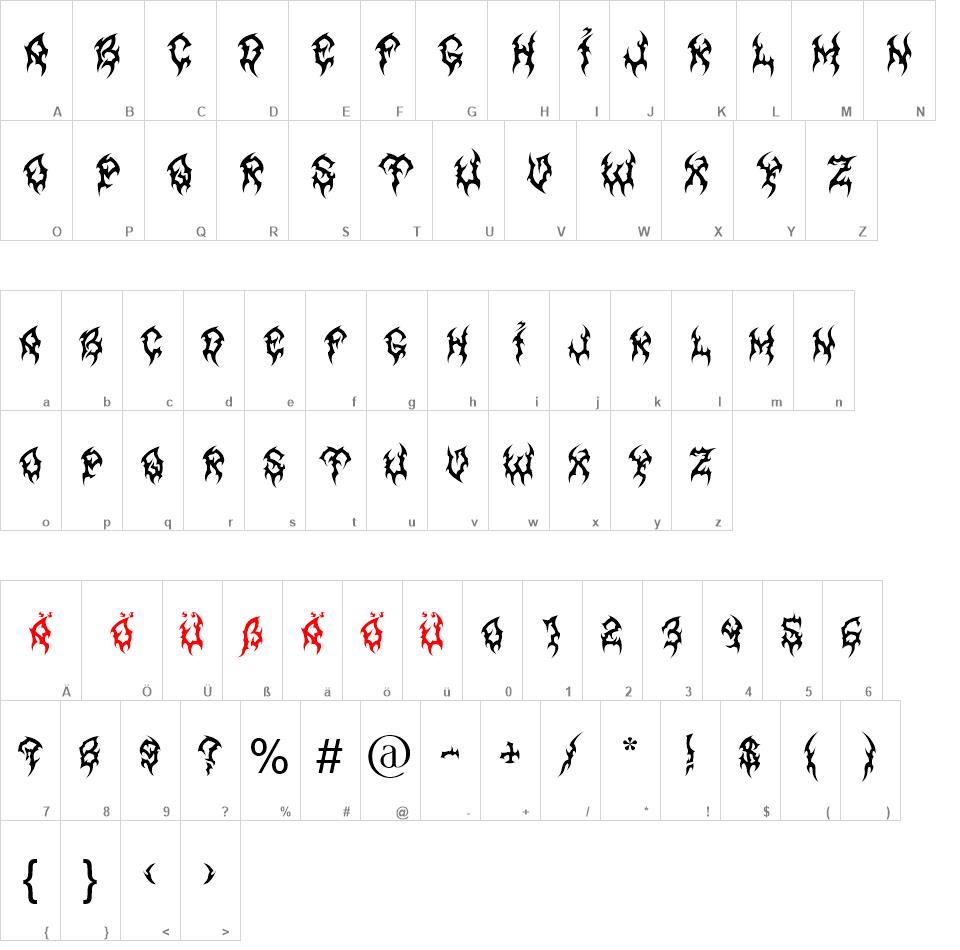
MB Forever Raw
MB Forever Raw font
MB Forever Raw
This font it something like a conclusion of what i've done before in my Arcane, Gothic Dawn and Graveyard Designs fonts, so that's why it's free. That's some kind of next level of this style - with higher quality, smooth curves... Enjoy.